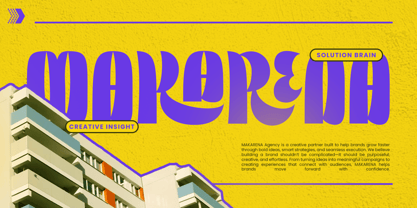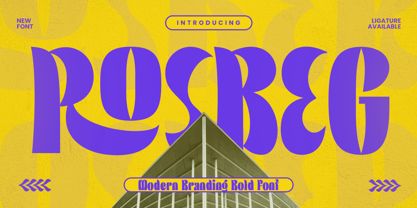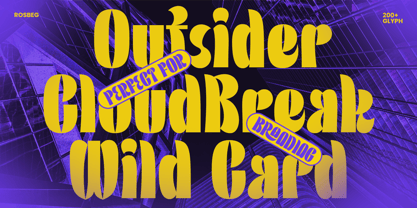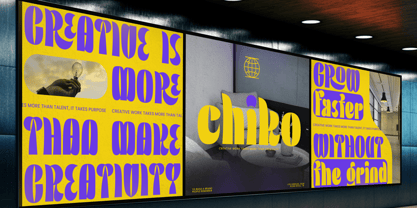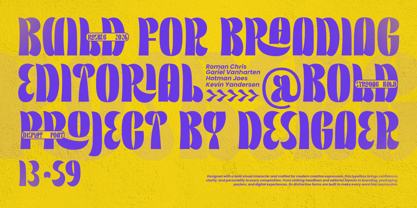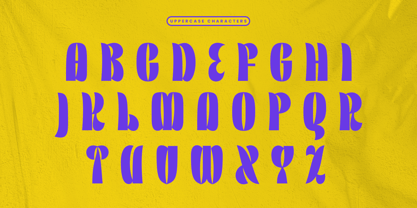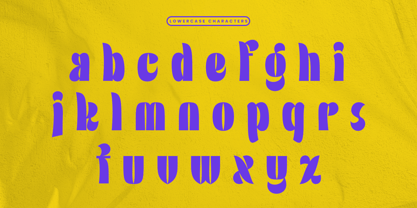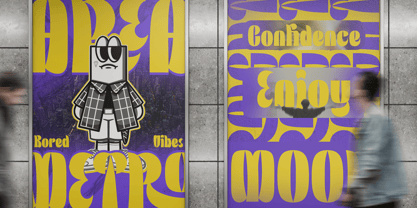
Rosbeg
by Aiquitype
The Rosbeg Font Family was designed by Achmad Aprilia Pratama and published by Aiquitype. Rosbeg contains 1 styles. More about this family
Rosbeg is a bold, modern display font crafted for brands that want to look confident, distinctive, and contemporary.
With its strong letterforms, clean geometry, and powerful visual presence, ROSBEG is designed to make an immediate impact while maintaining a polished and professional appearance. Its bold character makes it especially suitable for branding, logos, headlines, posters, packaging, advertising, social media designs, and other attention-grabbing visual identities.
ROSBEG brings together a modern aesthetic and a strong personality, making it a versatile choice for creative studios, fashion brands, lifestyle products, technology projects, sports identities, and businesses looking for a memorable visual voice.
Perfect for:
Branding • Logos • Headlines • Posters • Packaging • Advertising • Social Media • Editorial Design • Typography • Visual Identity
Make your brand stand out with ROSBEG — bold by nature, modern by design.